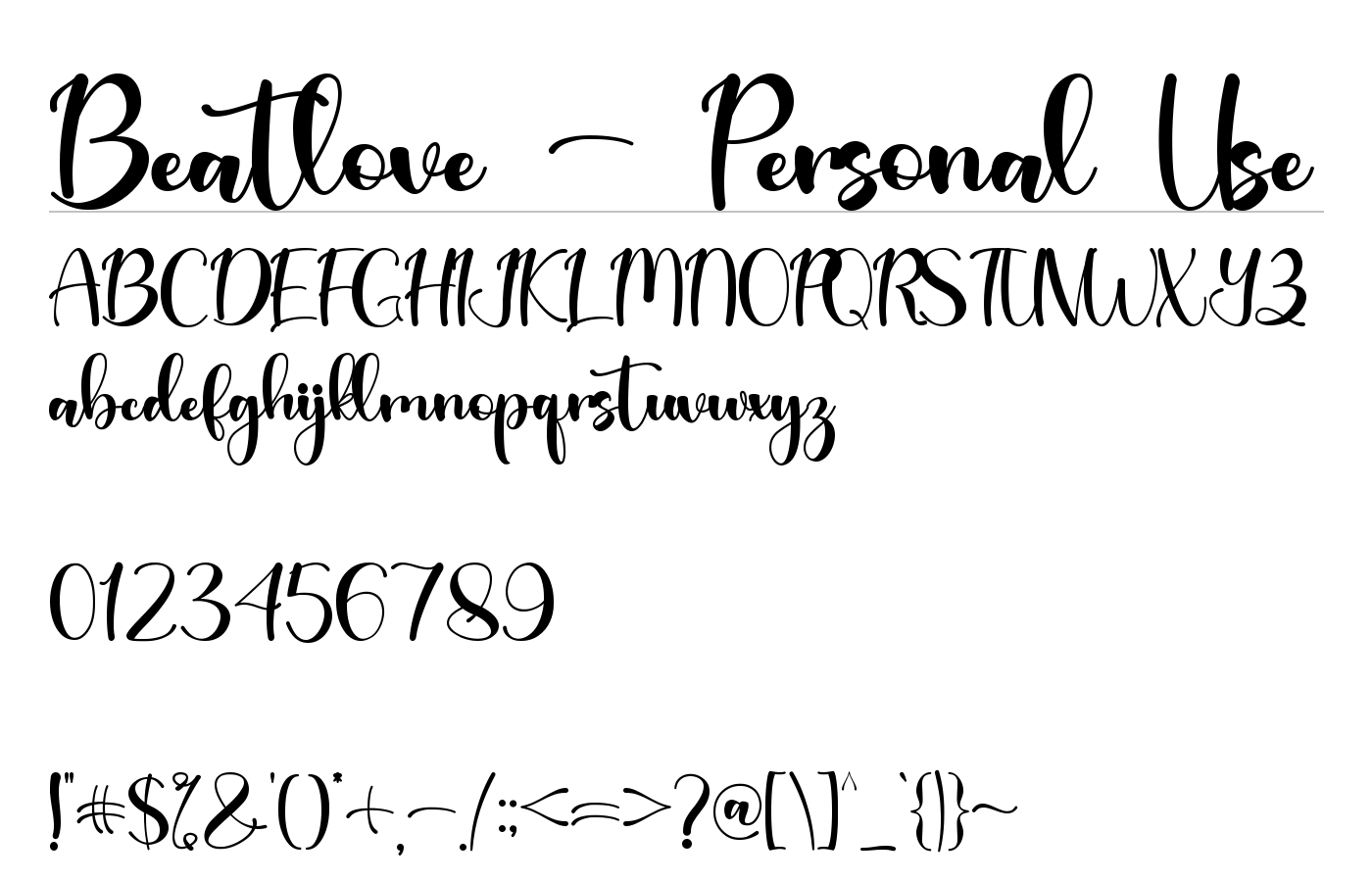
Beatlove is a charming script font with a playful yet elegant feel, featuring smooth, flowing strokes with moderate contrast and rounded, calligraphic forms. Its handwritten style with distinctive swashes and looping characters makes it perfect for personal branding, invitations, or creative projects that want to convey warmth and personality. This font works beautifully in headlines, logos, and decorative text where a stylish, friendly touch is desired.
Beatlove - Personal Use Font
About Beatlove - Personal Use Font